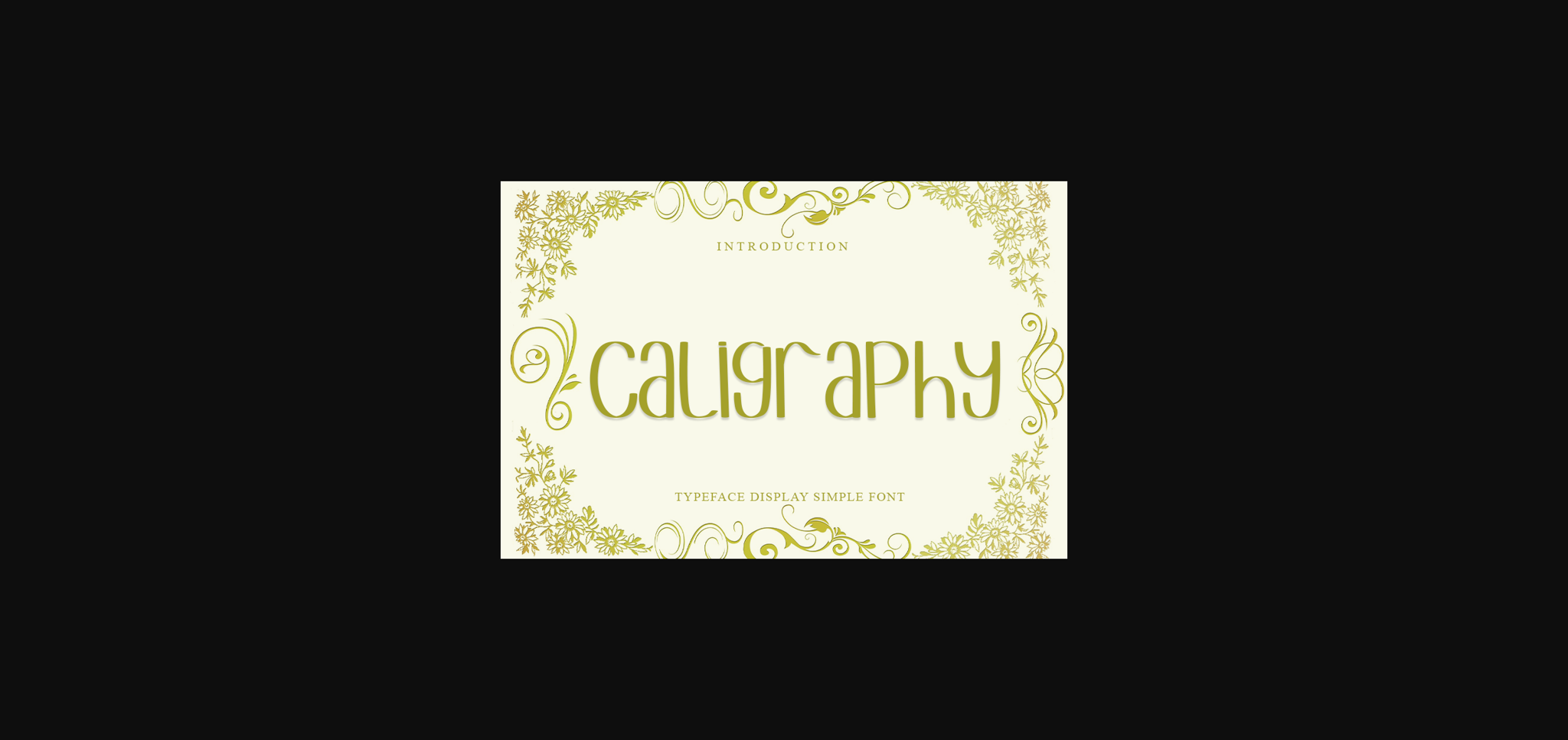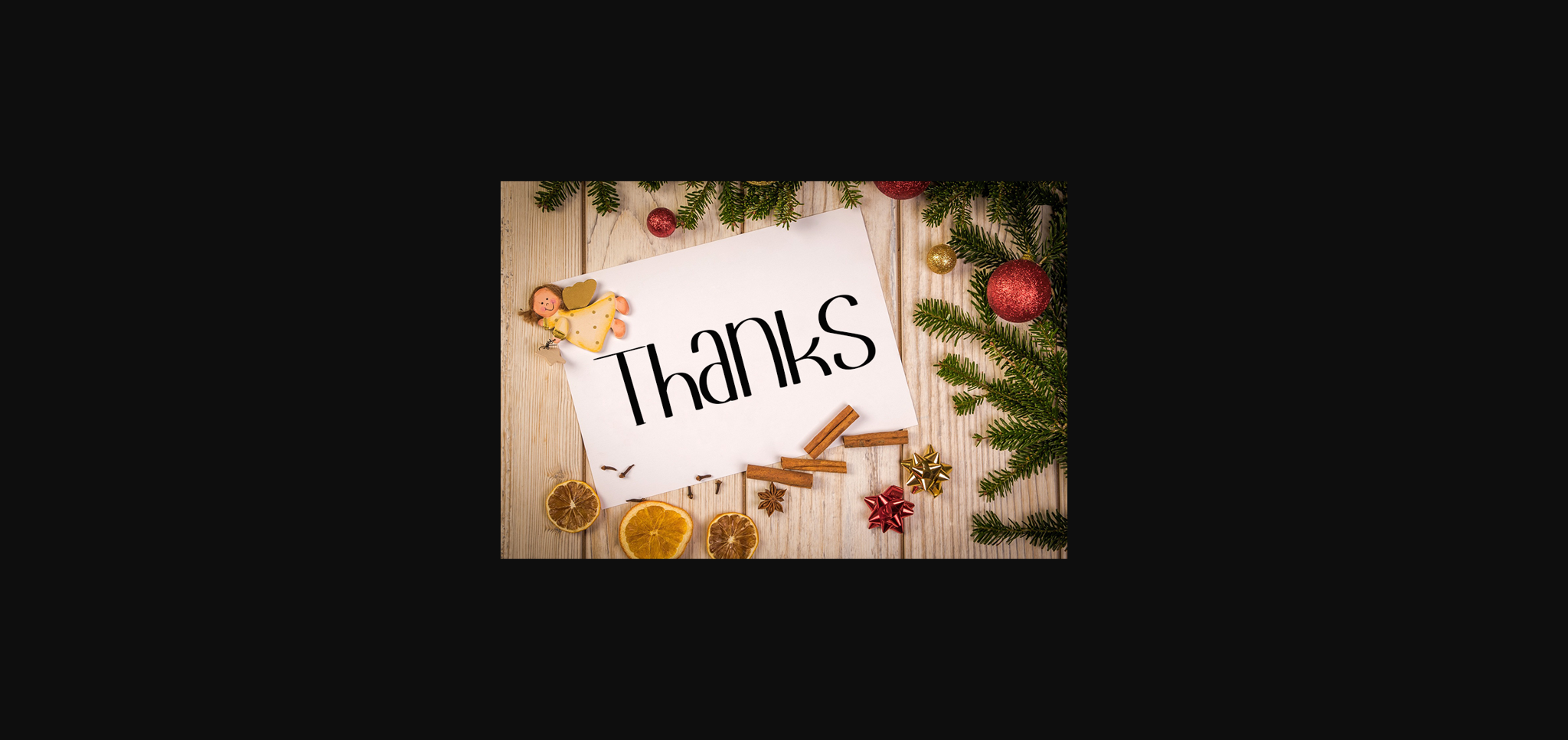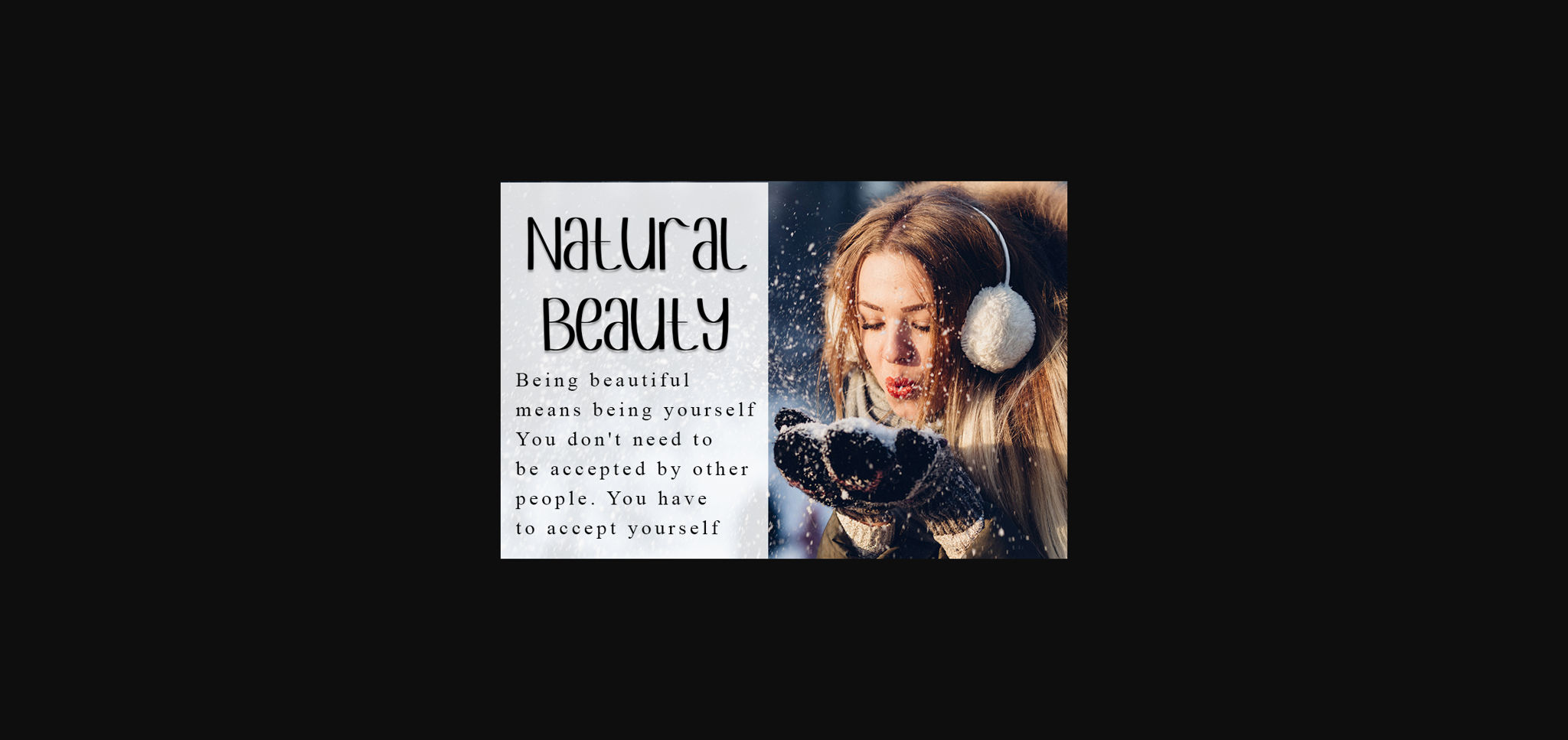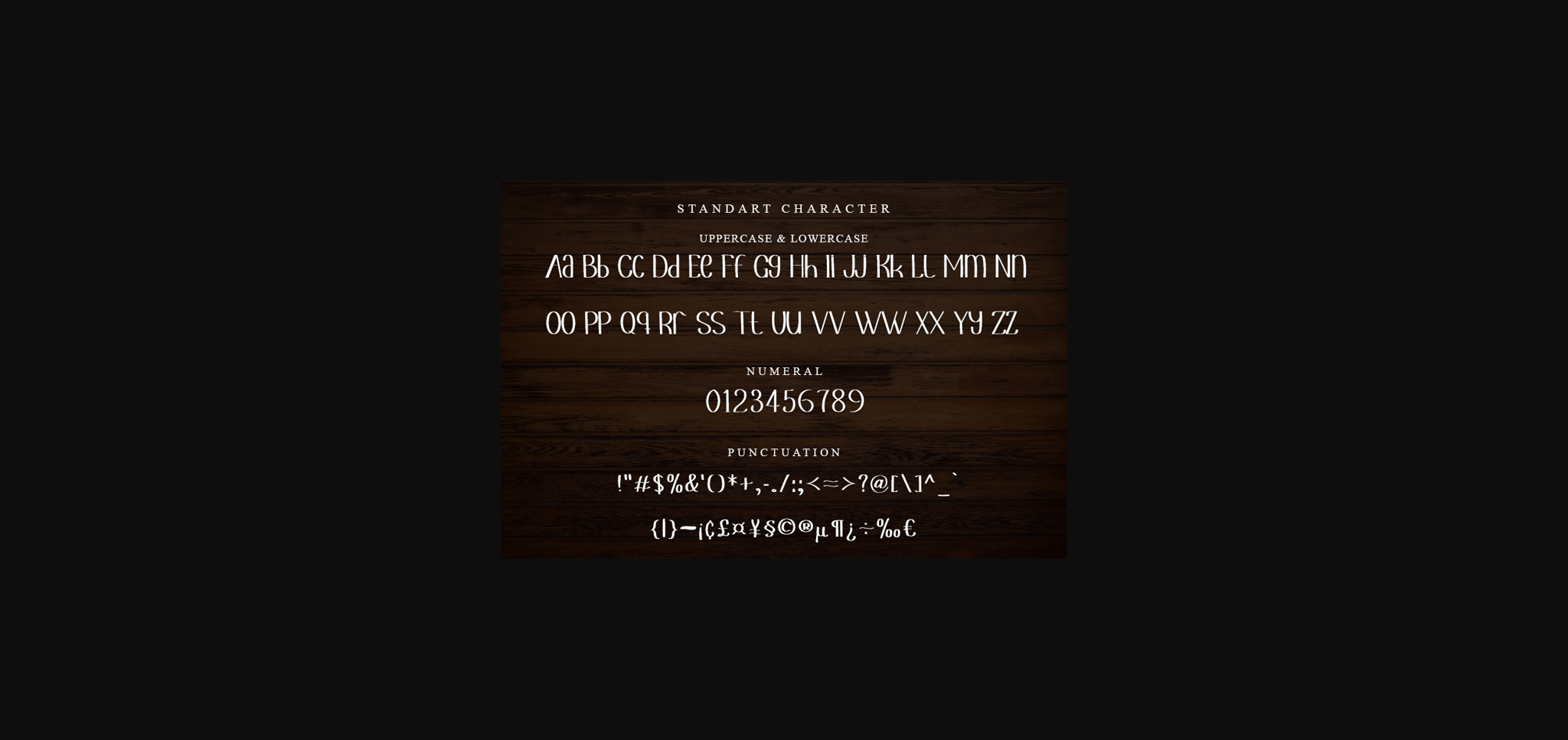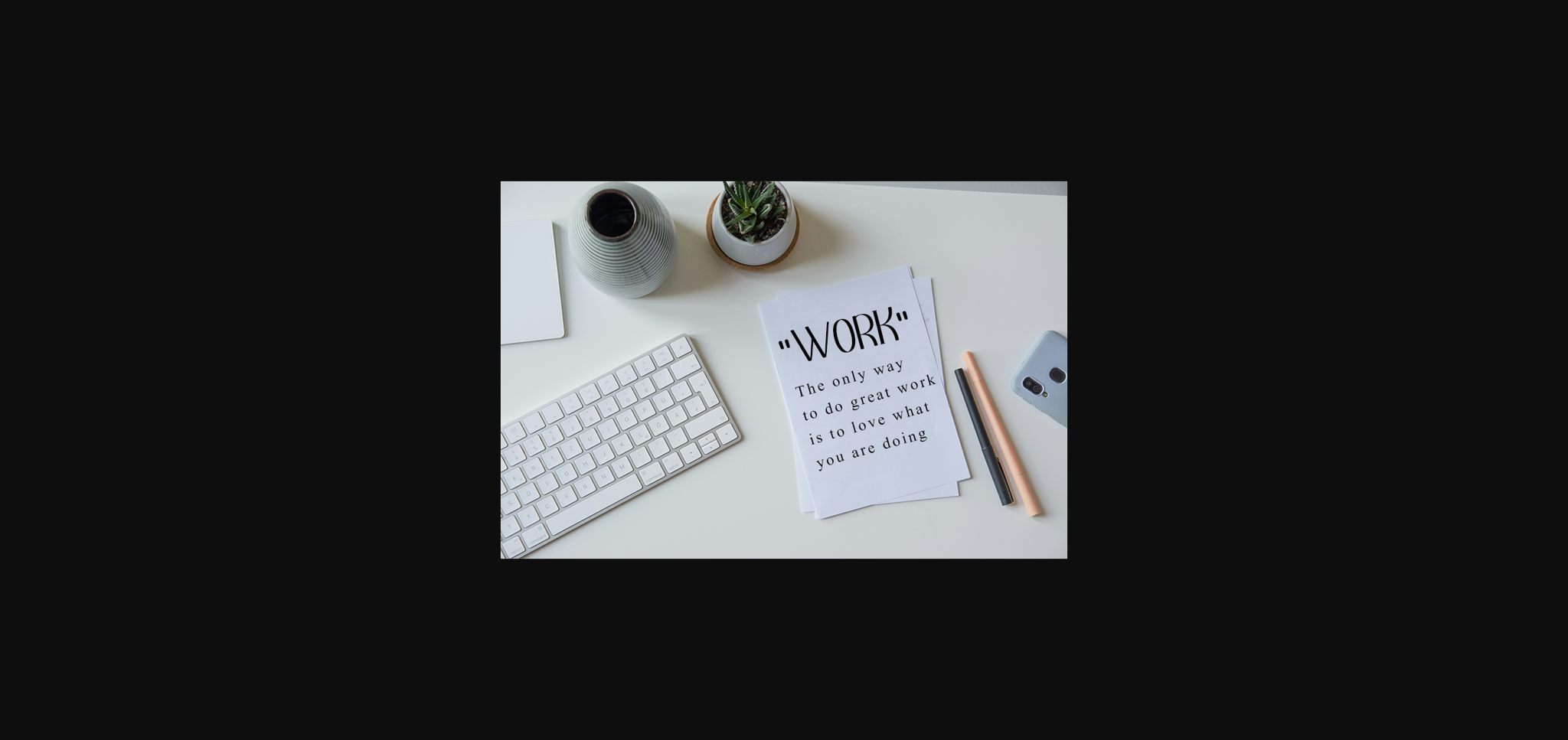
About Caligraphy Font
Caligraphy is a magical sans-serif font carefully created with a touch of elegance. Whether you’re looking for fonts for Instagram or stylish fonts for DIY projects, this font will turn any creative idea into a true piece of art!